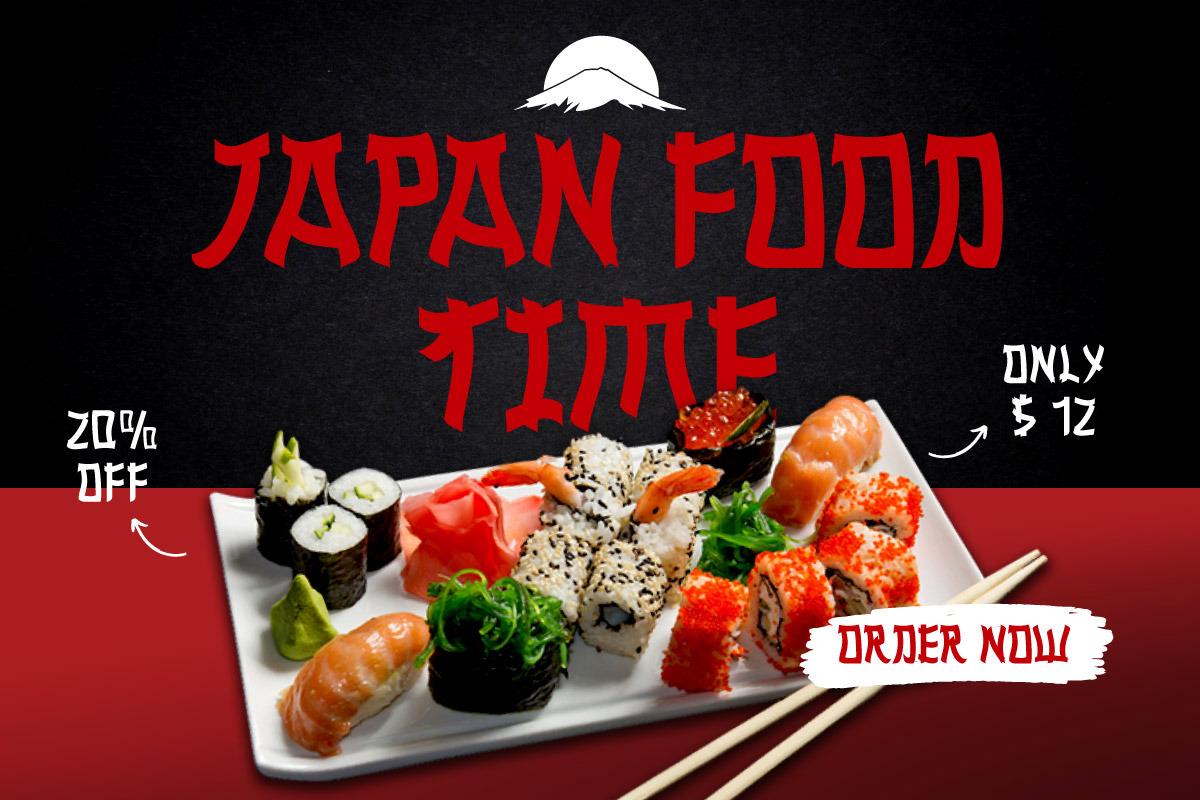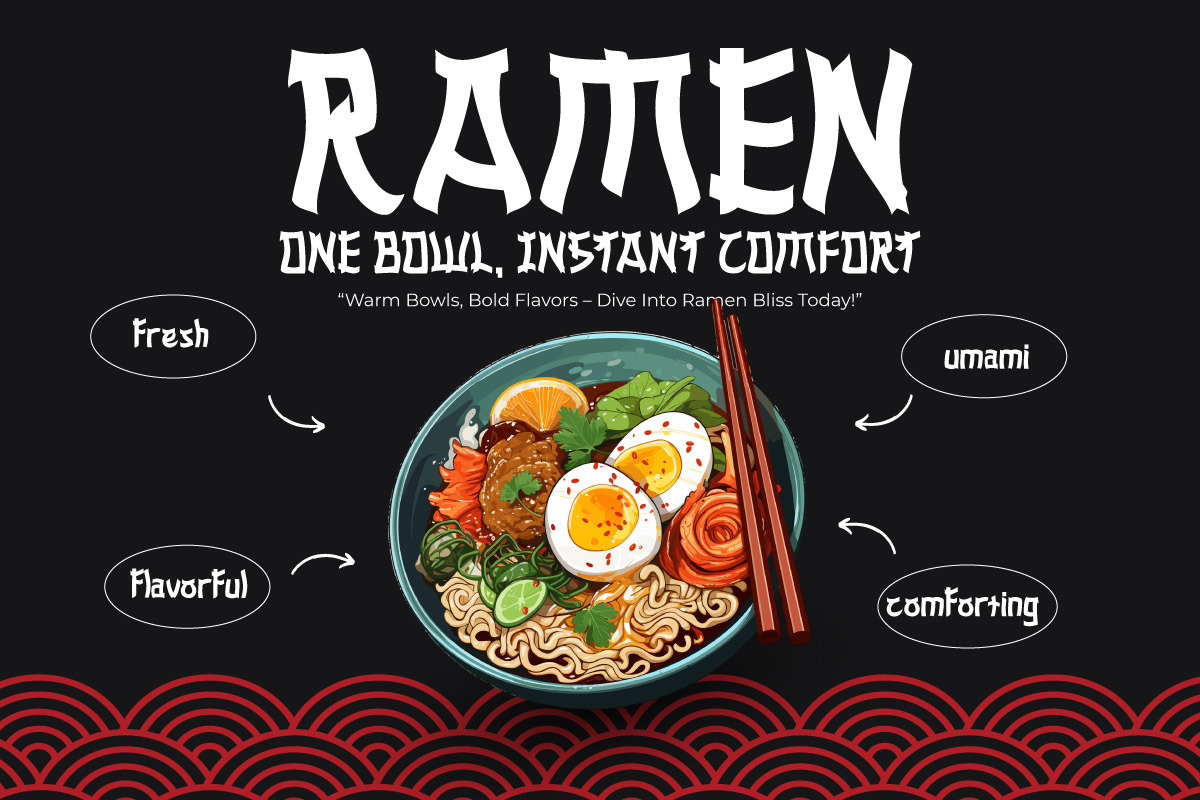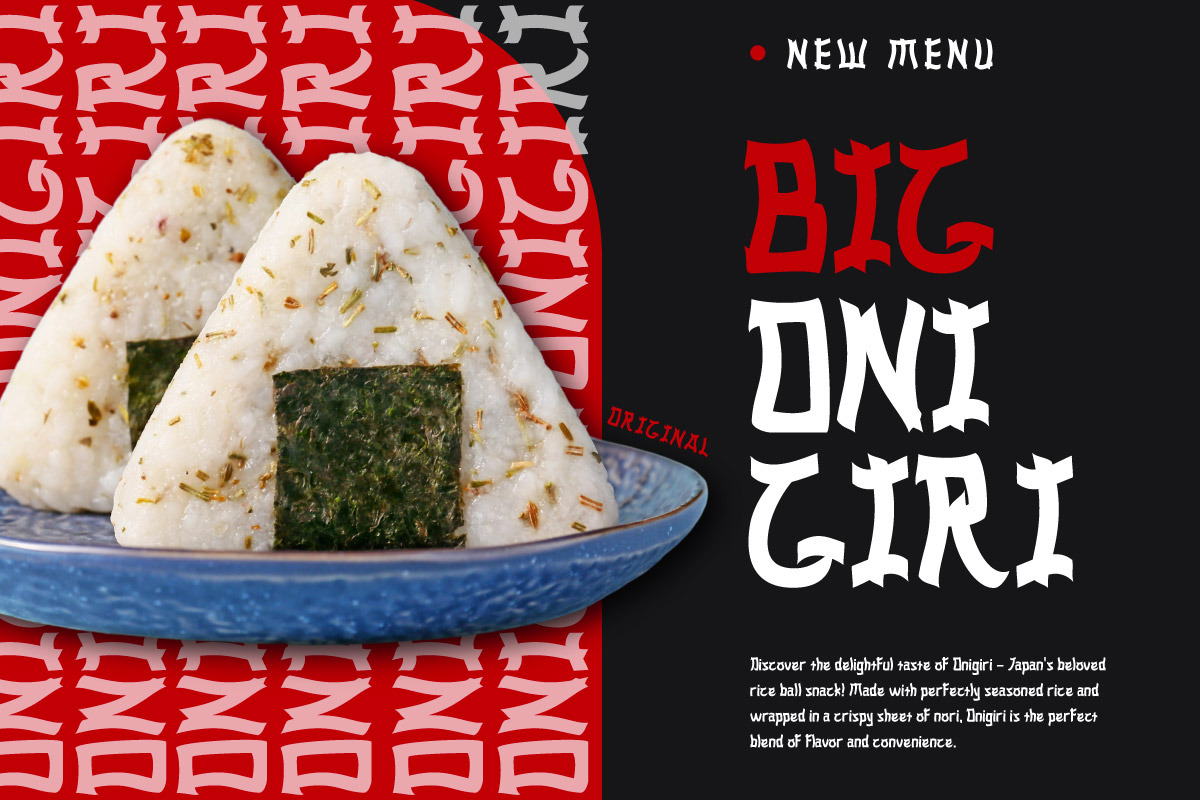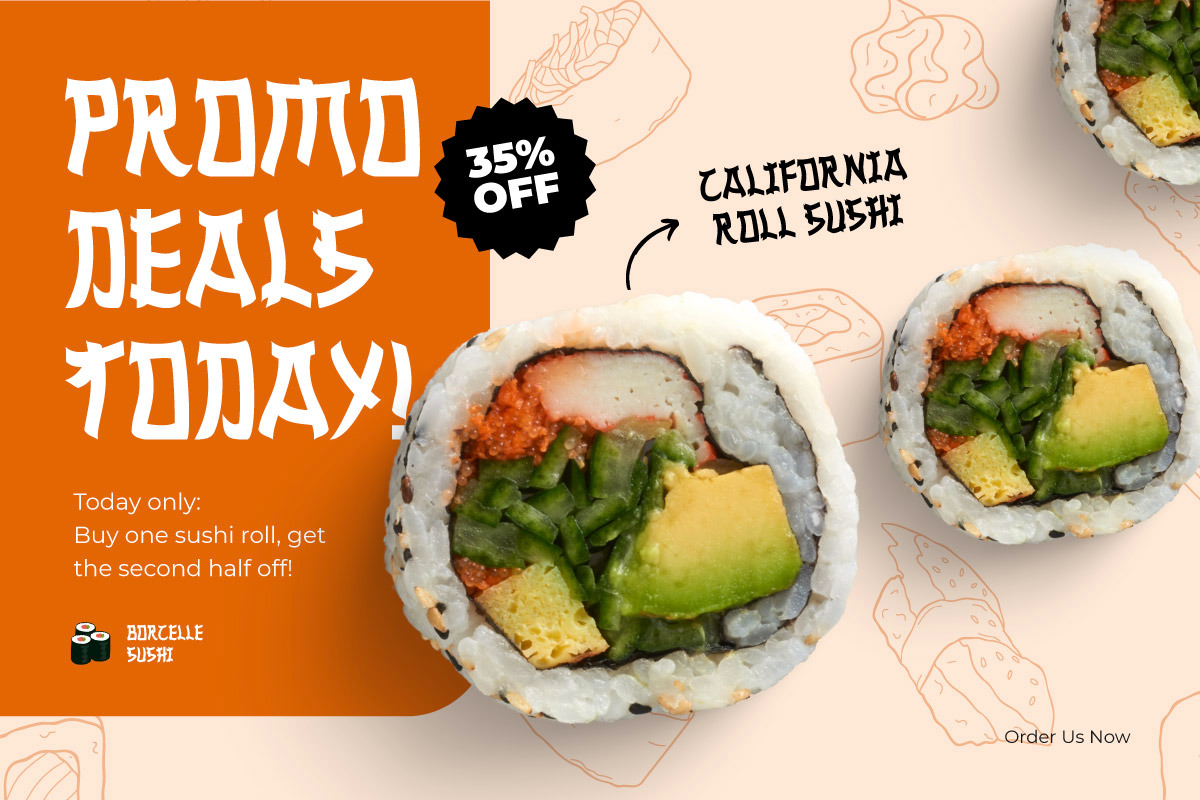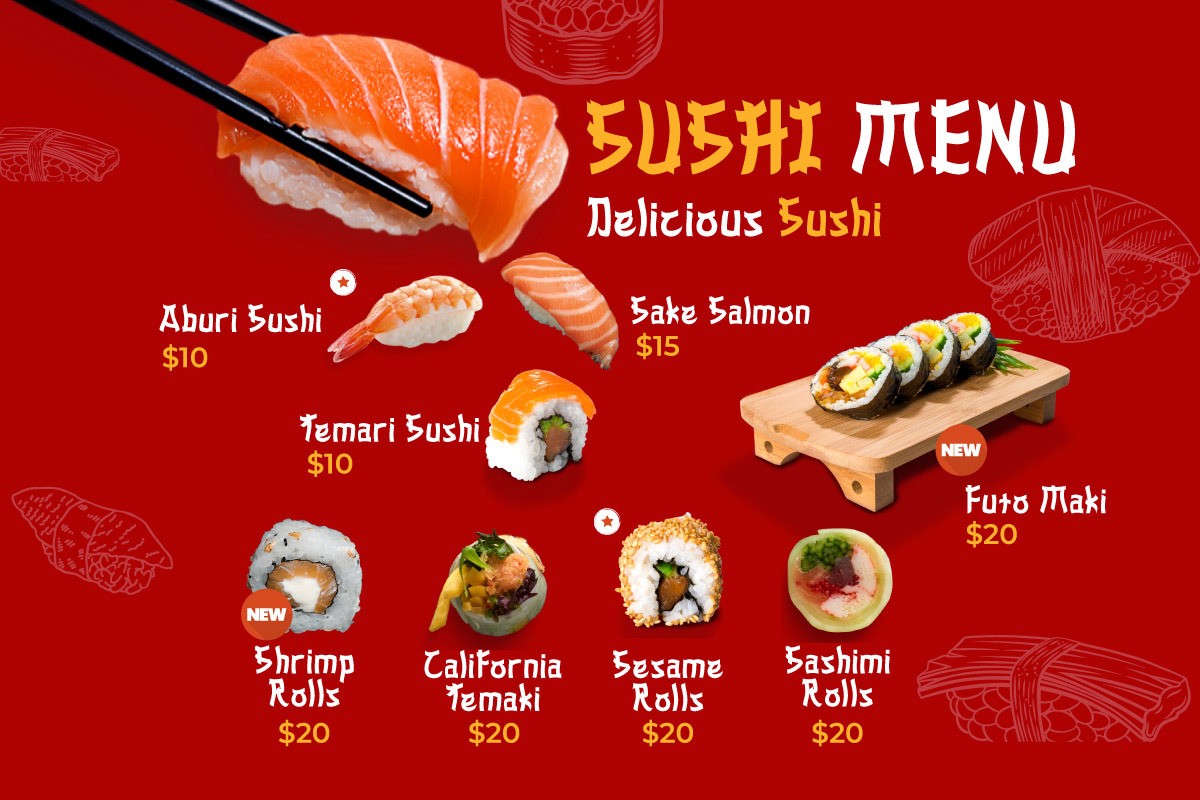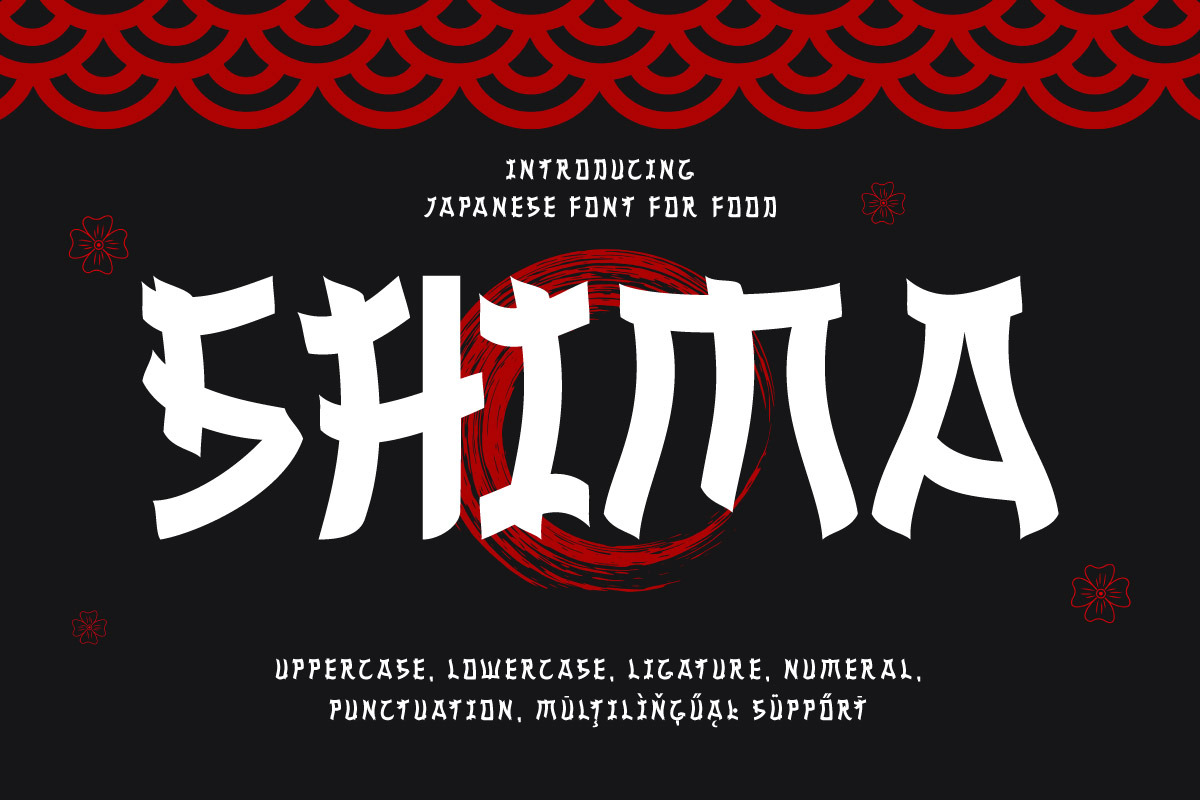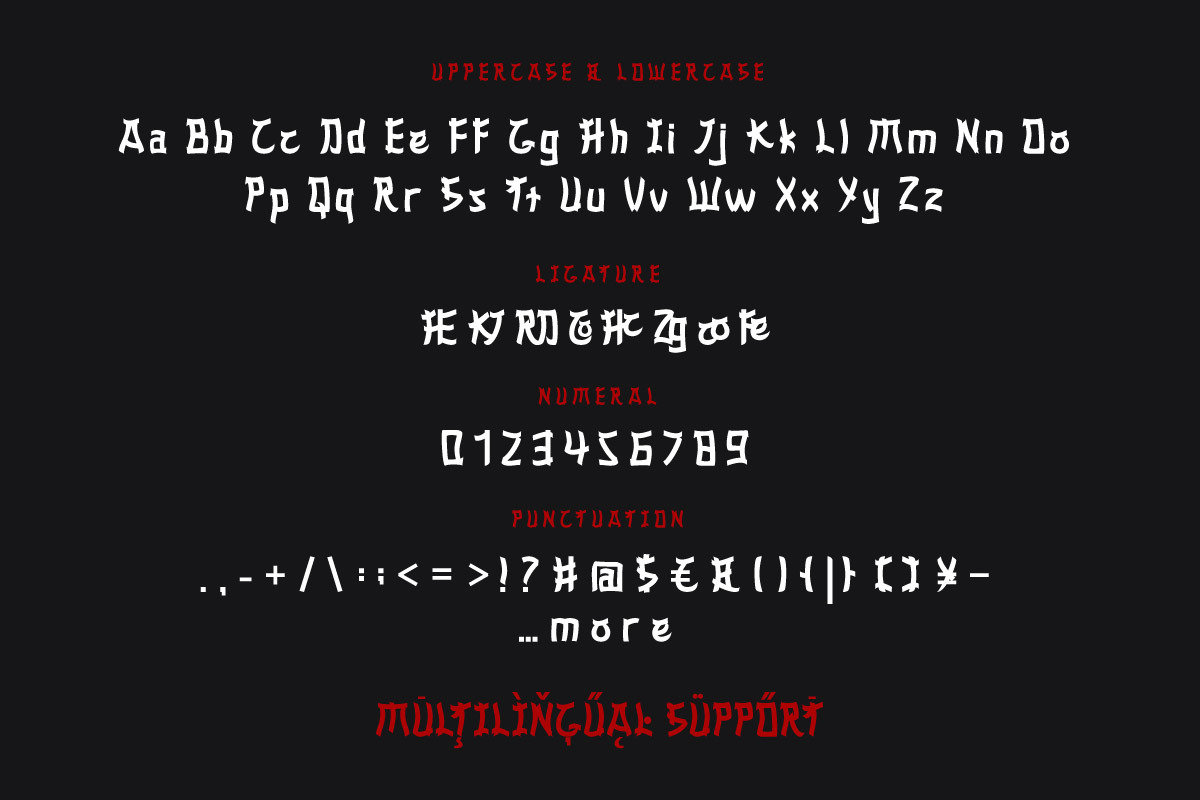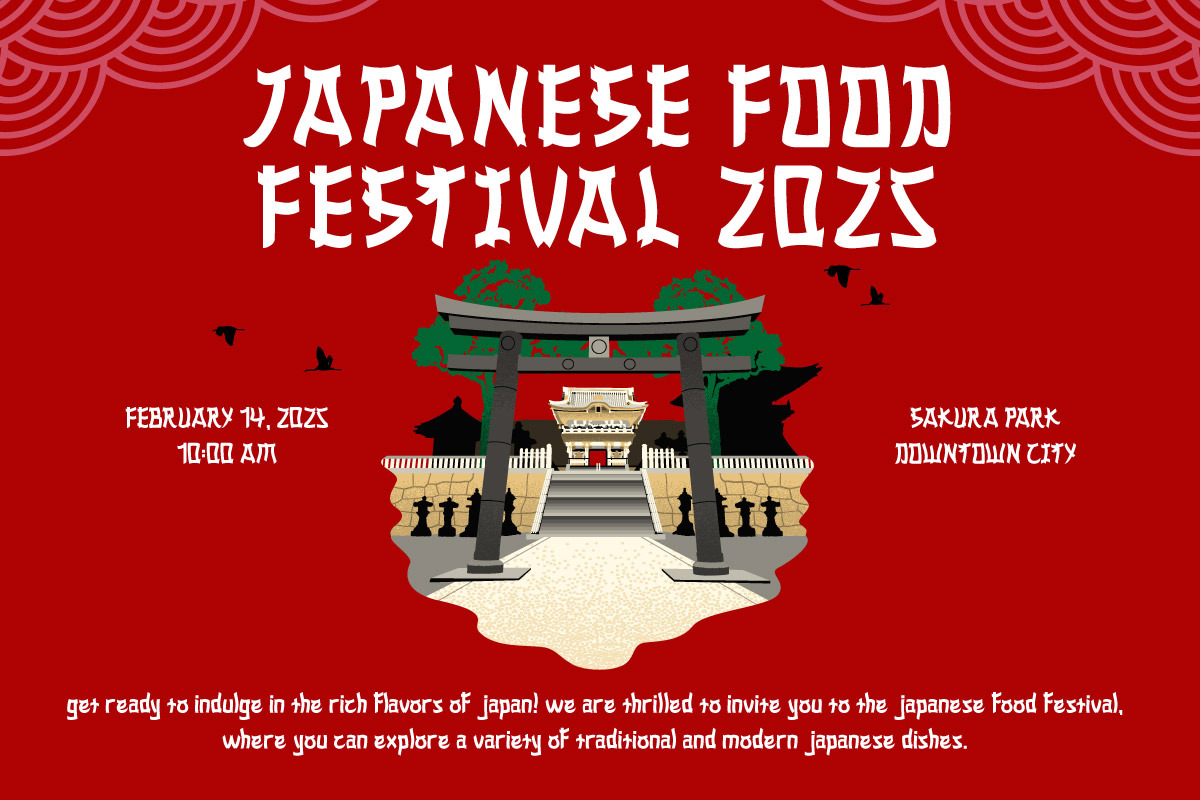
Shima - Japanese-Style Font for Food
Embrace the elegance of Japanese culture with SHIMA, a beautifully crafted typeface inspired by traditional brush strokes and modern aesthetics. Ideal for Japanese restaurant branding, menu design, event posters, and website headers, this font brings an authentic touch to your designs. Whether you’re creating a ramen shop logo, sushi bar menu, or cultural festival poster, SHIMA blends tradition with modernity for a stunning visual impact.